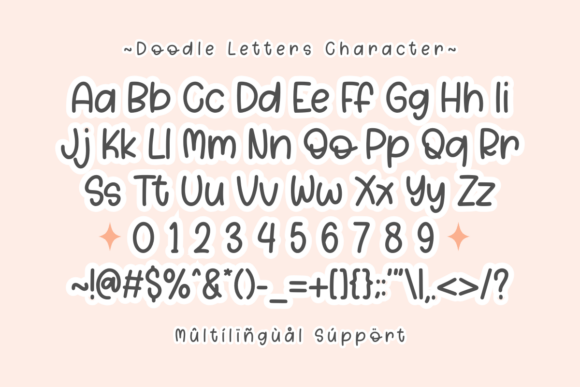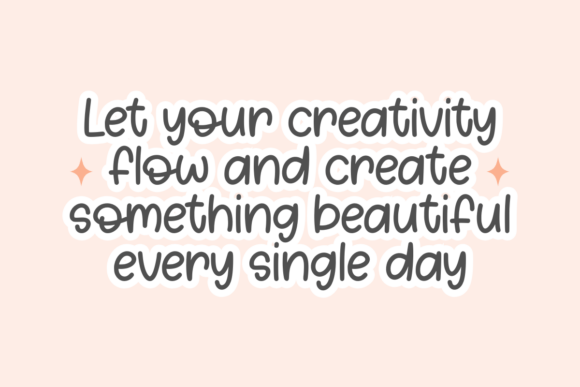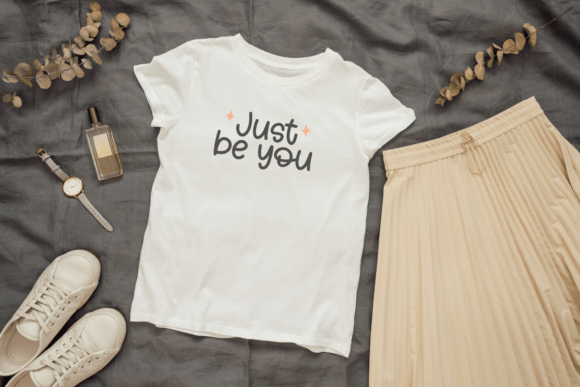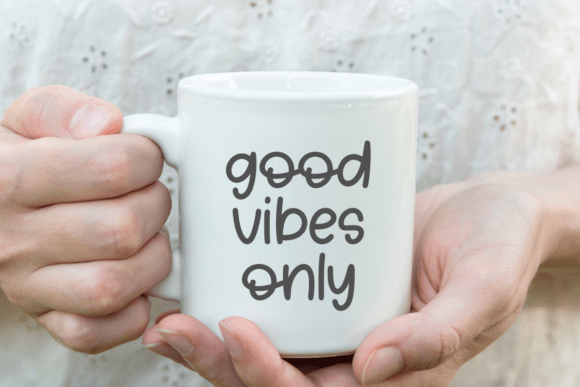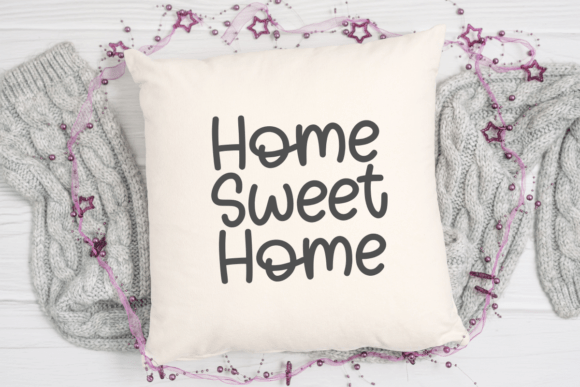
Doodle Letters Font: The Perfect Choice for Romantic Designs
In the world of typography, few fonts capture the essence of romance and whimsy as beautifully as Doodle Letters. This charming handwriting font boasts a clean yet playful vibe, making it an ideal choice for designers and crafters looking to add a touch of elegance and warmth to their projects. With its smooth curves and hand-drawn feel, Doodle Letters is perfect for creating romantic designs, wedding invitations, heartfelt branding, and elegant social media graphics.
The Characteristics of Doodle Letters Font
Doodle Letters font is distinguished by its unique blend of modern aesthetic and playful warmth. Its smooth curves and fluid lines give it a hand-drawn feel that is both elegant and approachable. The font’s versatility makes it suitable for a wide range of projects, from romantic designs and wedding invitations to heartfelt branding and social media graphics.
Perfect for Romantic Designs
When it comes to creating romantic designs, the font used can make all the difference. Doodle Letters font is specifically designed to evoke feelings of love and warmth, making it the perfect choice for designers looking to create beautiful and emotive designs. Whether you’re creating a wedding invitation, a love letter, or a romantic social media graphic, Doodle Letters font is sure to impress.
Wedding Invitations and Stationery
Wedding invitations and stationery are a great way to showcase the beauty of Doodle Letters font. The font’s elegant and whimsical vibe makes it perfect for creating stunning wedding invitations, save-the-date cards, and other stationery items. With Doodle Letters, you can create beautiful and memorable wedding stationery that will set the tone for the big day.
Heartfelt Branding and Packaging
Doodle Letters font is not just limited to romantic designs and wedding stationery. Its versatility makes it an excellent choice for heartfelt branding and packaging projects. Whether you’re creating a brand identity for a bakery, a fashion label, or a home decor business, Doodle Letters font can help you create a warm and inviting brand image.
Elegant Social Media Graphics
In today’s digital age, social media graphics are an essential part of any designer’s toolkit. Doodle Letters font is perfect for creating elegant and eye-catching social media graphics that will help you stand out from the crowd. Whether you’re creating a Facebook post, an Instagram story, or a Pinterest graphic, Doodle Letters font is sure to impress.
Why Choose Doodle Letters Font?
So why choose Doodle Letters font for your next project? Here are just a few reasons:
- Unique and Versatile: Doodle Letters font is a unique and versatile font that can be used for a wide range of projects.
- Elegant and Whimsical: The font’s elegant and whimsical vibe makes it perfect for romantic designs, wedding invitations, and heartfelt branding.
- Easy to Read: Doodle Letters font is easy to read, making it perfect for body text and captions.
- High-Quality: The font is of high-quality, making it perfect for professional designs and projects.
Tips for Using Doodle Letters Font
Here are a few tips for using Doodle Letters font in your next project:
- Pair it with Other Fonts: Doodle Letters font pairs well with other fonts, so don’t be afraid to experiment with different combinations.
- Use it for Headings and Titles: The font is perfect for headings and titles, so use it to add a touch of elegance and whimsy to your designs.
- Experiment with Colors: Doodle Letters font looks great in a variety of colors, so experiment with different colors to find the perfect one for your project.
In conclusion, Doodle Letters font is a charming handwriting font that is perfect for romantic designs, wedding invitations, heartfelt branding, and elegant social media graphics. Its unique blend of modern aesthetic and playful warmth makes it a versatile font that can be used for a wide range of projects. With its smooth curves and hand-drawn feel, Doodle Letters font is sure to impress designers and crafters alike.